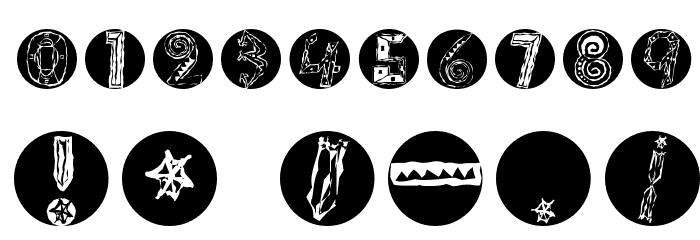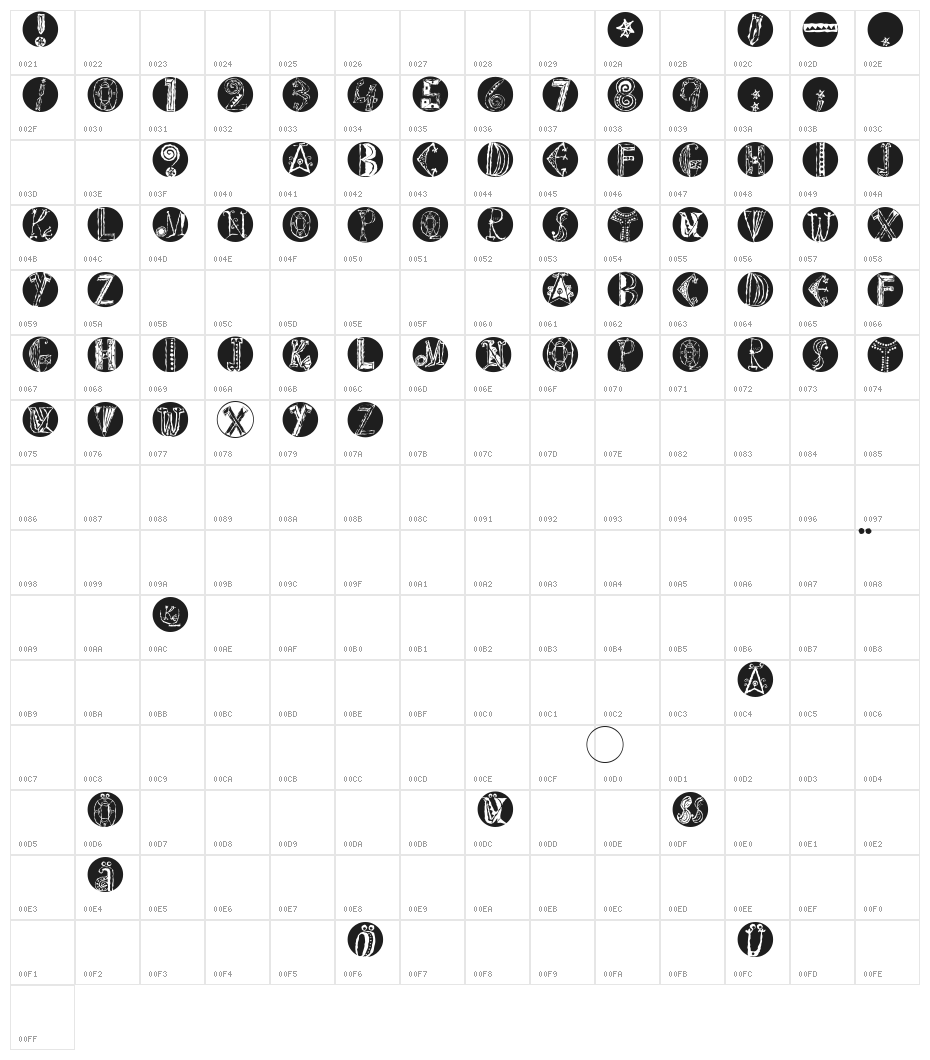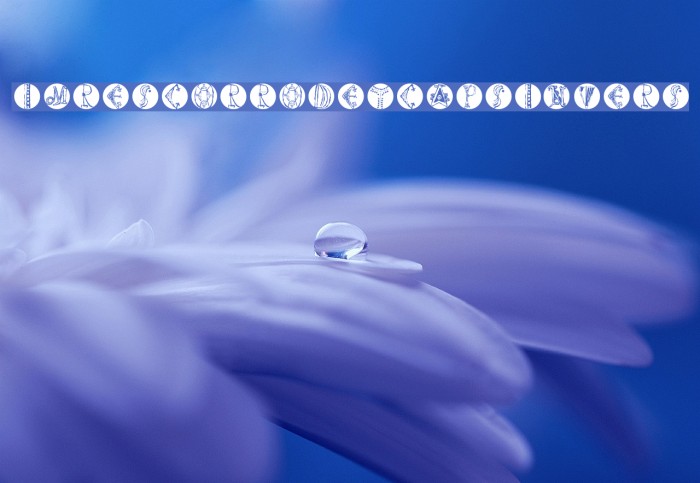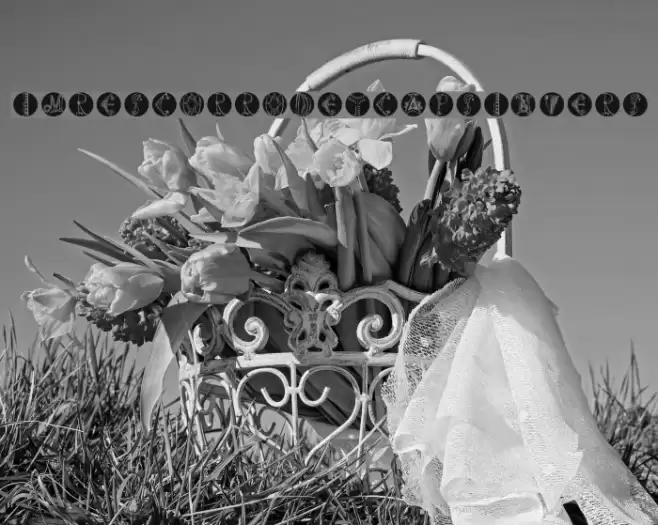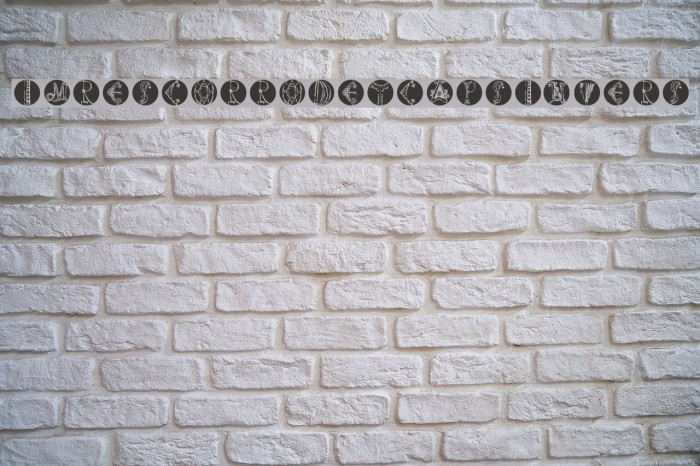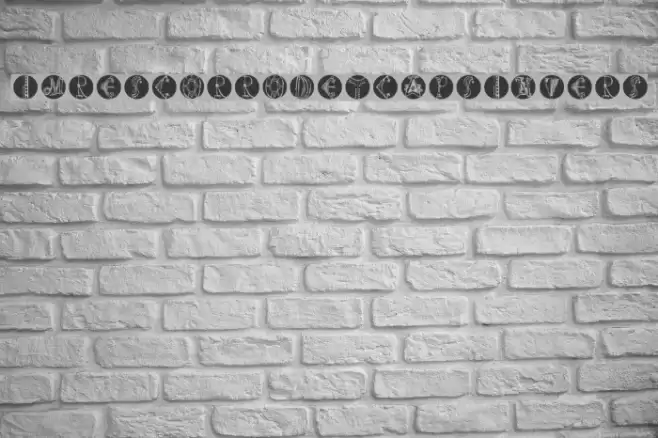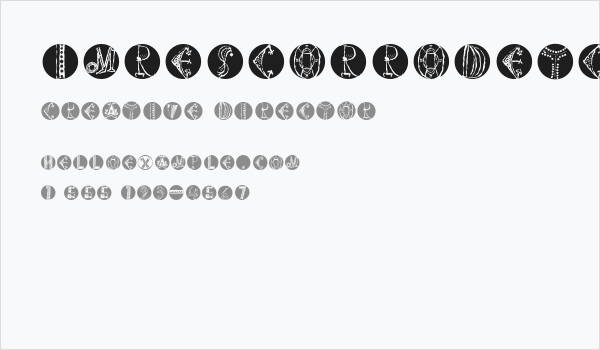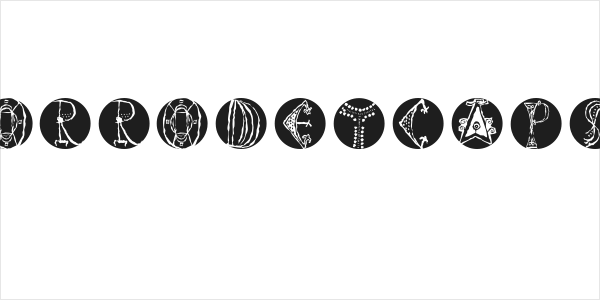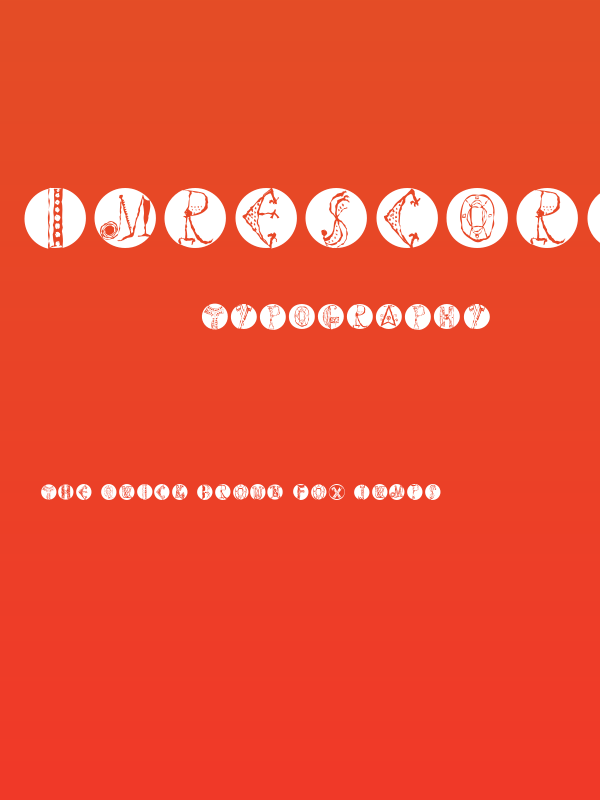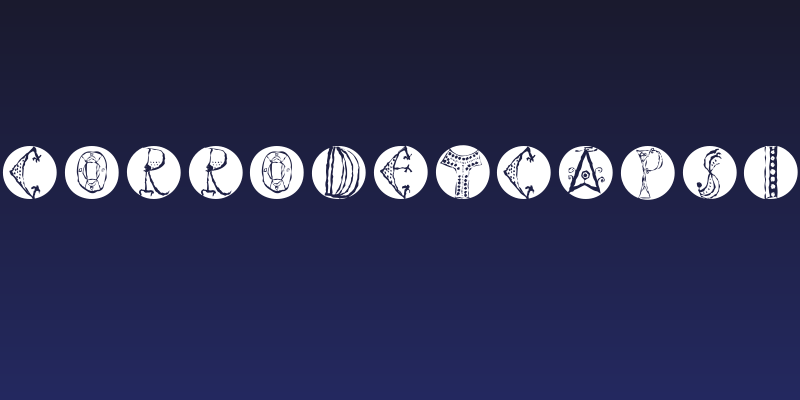
ImresCorrodetCapsInvers Font
ImresCorrodetCapsInvers Description
This font is a highly decorative and artistic typeface, featuring intricate and unique designs within each character. Each letter and number is enclosed within a circle, adding a distinct visual boundary. The characters are filled with various patterns and motifs, giving them a playful and whimsical appearance. The font showcases a mix of geometric shapes, lines, and textures, creating a visually engaging experience. The overall style is eclectic and imaginative, making it suitable for creative and unconventional projects. The font's design is consistent across uppercase, lowercase, and numerical characters, maintaining its artistic theme throughout.